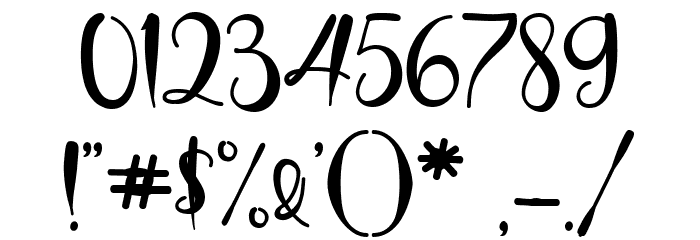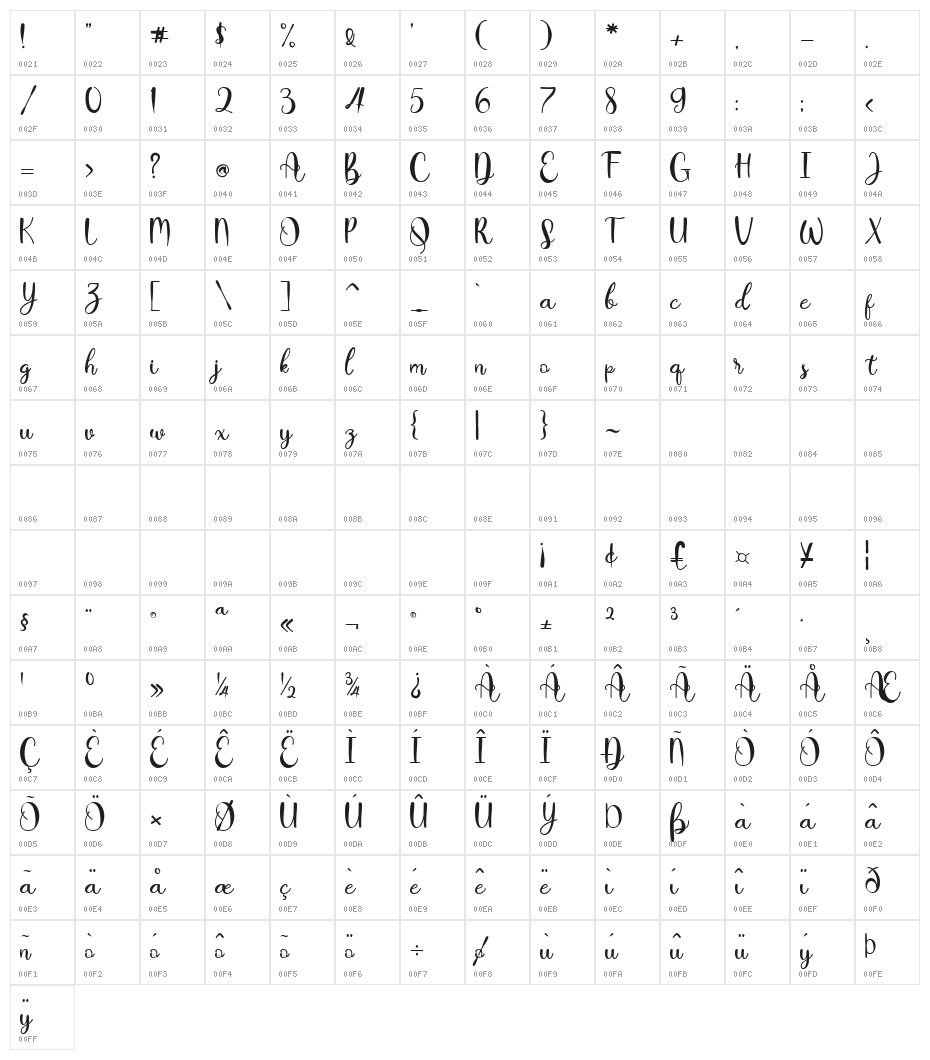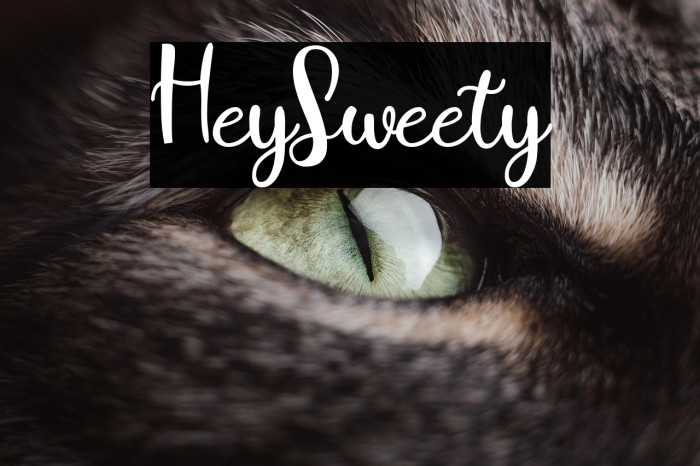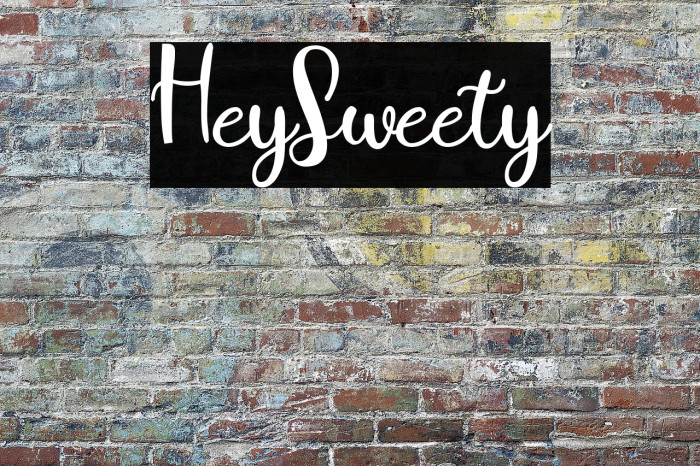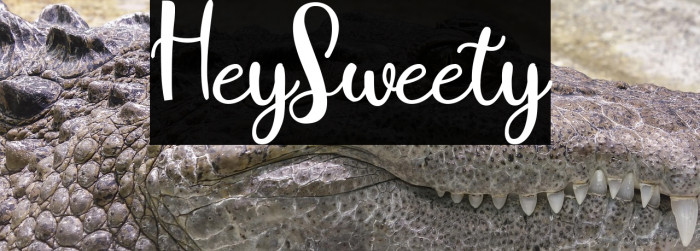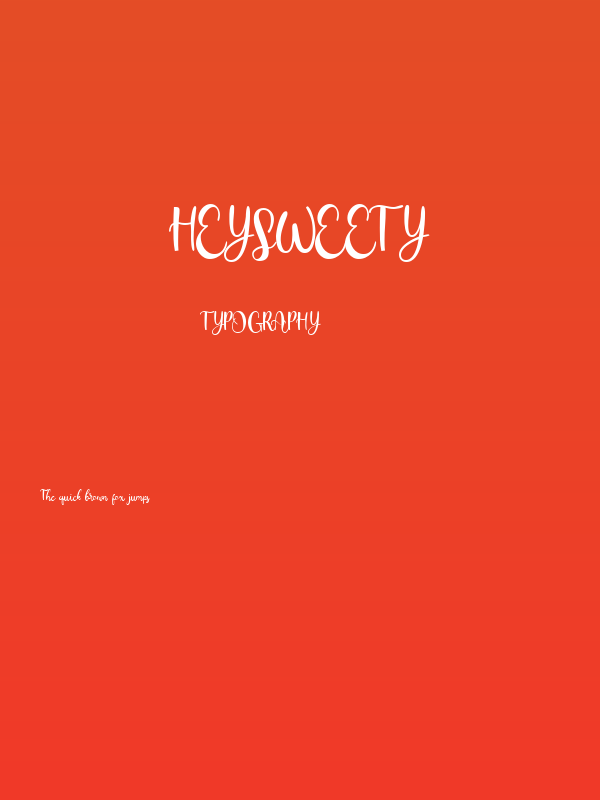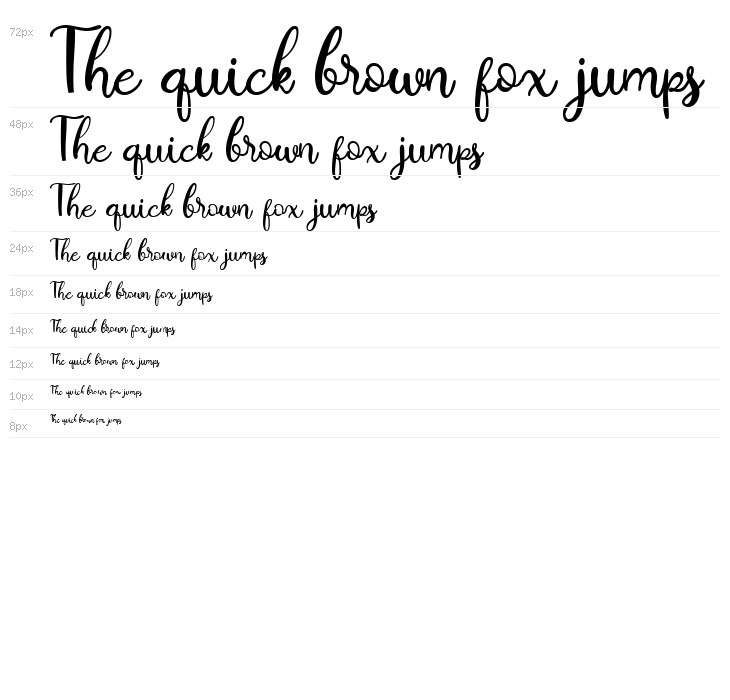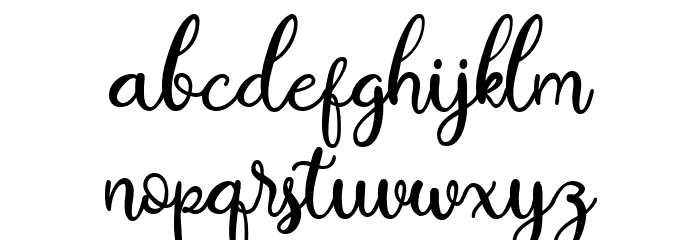
HeySweety Font
HeySweety Description
This font features a playful and whimsical script style with a handwritten appearance. The uppercase letters are bold and expressive, with a mix of loops and curves that add a lively character to the text. The lowercase letters maintain a consistent flow, enhancing readability while retaining the font's unique charm. Numbers and special characters are designed to match the overall aesthetic, making them suitable for creative and decorative purposes. The font's style is ideal for projects that require a personal touch, such as invitations, greeting cards, or branding materials.
| Use Case | Headlines, Logos, Decorative text |
| Proposed Projects | Ideal for invitations, greeting cards, branding, and decorative projects. |